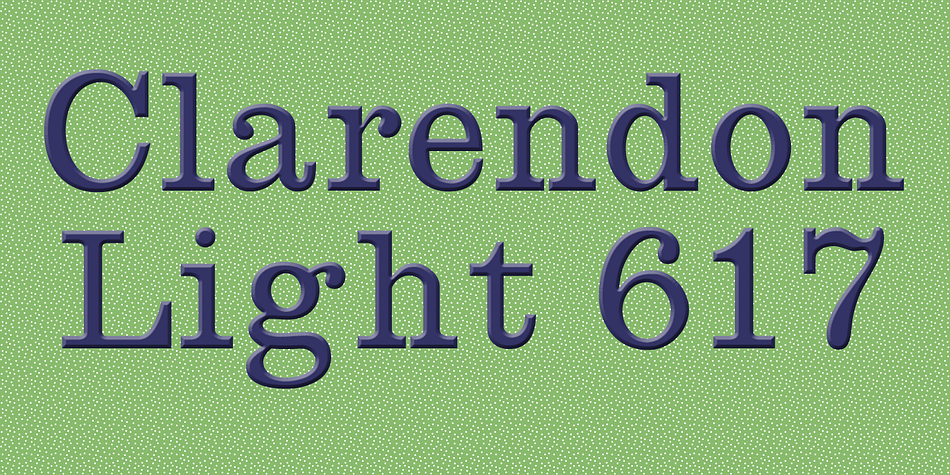
Designed by Jordan Davies and Robert Besley, Clarendon 617 is a slab serif font published by Wooden Type Fonts.
One of the classic display types of the 19th century, an Egyptian with bracketed serifs. There are many variants of this face and its uses are many.
| Foundry | Wooden Type Fonts |
| Style | Slab Serif |
| Designers | Jordan Davies, Robert Besley |